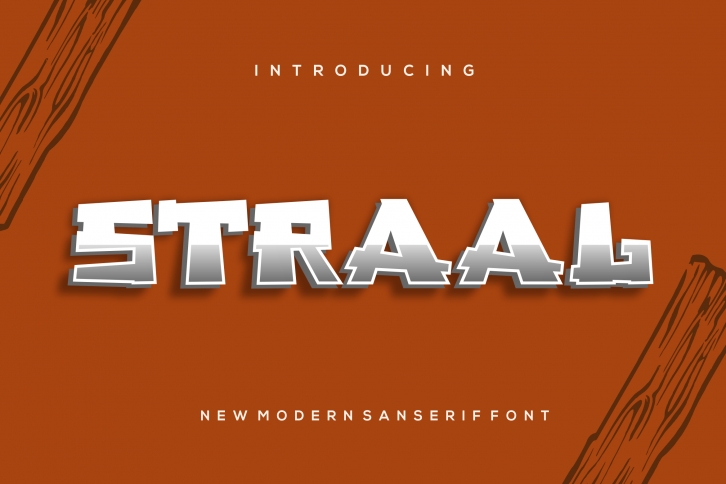
Straal is a modern display font with a bold and authentic look. It is suitable for branding projects such as logos, T-shirt printing, Esports, and many more. Add it to your fonts library, and it will become an instant favorite!